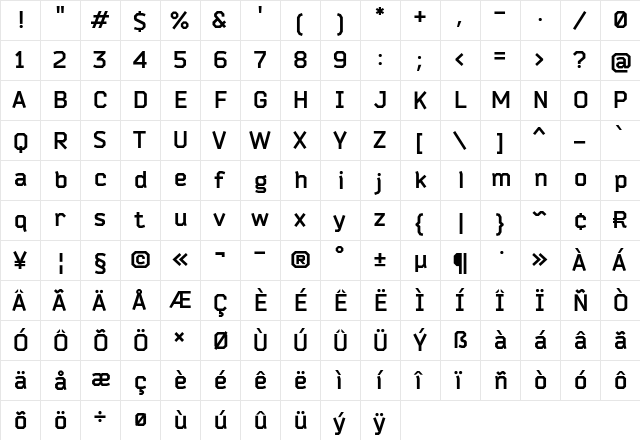
Bender Bold
Design Context for Bender Typeface
Bender takes a measured approach to typography — its balanced proportions and neutral character make it a reliable workhorse for both digital and print work. The heavy weight commands attention and anchors typographic hierarchies.